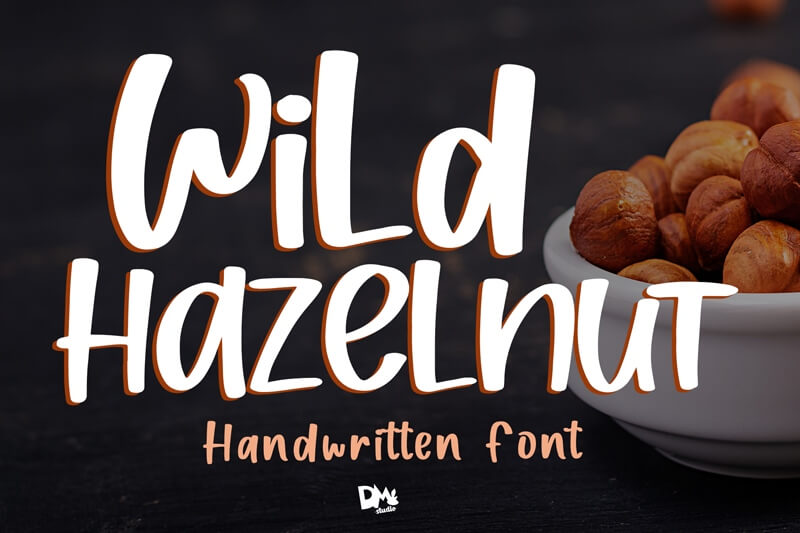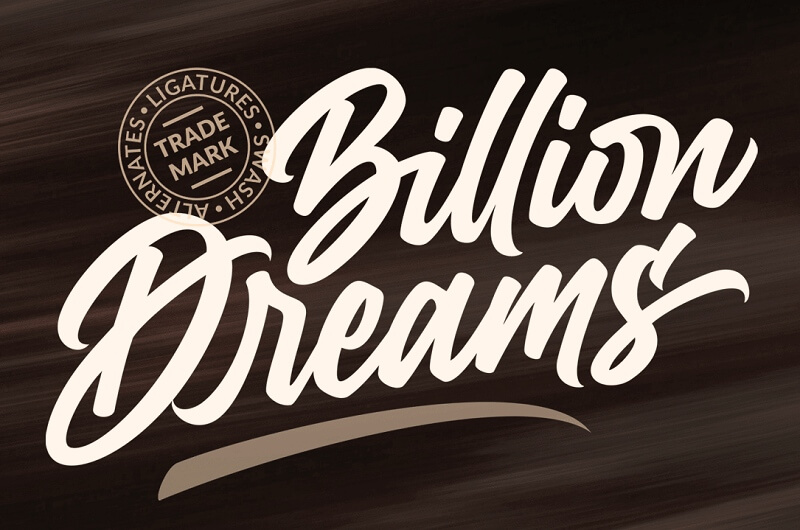
Best Font For Cookbook . Keep your fonts to a maximum of three: There are several standard fonts used for printed cookbooks. The major ones are georgia, adobe garamond pro, minion pro, palatino, baskerville, and goudy old style. Deciding which font to use and whether it should compliment, contrast or accentuate the imagery, is a key decision in. They’ll never let your typesetting down, guaranteed. The right font choice will not only make your book more consumable, but will also be better aligned with the genre, the book’s tone, and your audience. Cookbooks are typically read while standing up and walking around the kitchen, so look for body copy and hierarchy typefaces that can be read from a distance. We judged the legibility, beauty, simplicity and variety of weights available of a huge range of fonts, and whittled them down to these faithful five.
The major ones are georgia, adobe garamond pro, minion pro, palatino, baskerville, and goudy old style. The right font choice will not only make your book more consumable, but will also be better aligned with the genre, the book’s tone, and your audience. They’ll never let your typesetting down, guaranteed. Cookbooks are typically read while standing up and walking around the kitchen, so look for body copy and hierarchy typefaces that can be read from a distance. Deciding which font to use and whether it should compliment, contrast or accentuate the imagery, is a key decision in. There are several standard fonts used for printed cookbooks. Keep your fonts to a maximum of three: We judged the legibility, beauty, simplicity and variety of weights available of a huge range of fonts, and whittled them down to these faithful five.
Best Font For Cookbook We judged the legibility, beauty, simplicity and variety of weights available of a huge range of fonts, and whittled them down to these faithful five. They’ll never let your typesetting down, guaranteed. The major ones are georgia, adobe garamond pro, minion pro, palatino, baskerville, and goudy old style. The right font choice will not only make your book more consumable, but will also be better aligned with the genre, the book’s tone, and your audience. Keep your fonts to a maximum of three: Cookbooks are typically read while standing up and walking around the kitchen, so look for body copy and hierarchy typefaces that can be read from a distance. Deciding which font to use and whether it should compliment, contrast or accentuate the imagery, is a key decision in. We judged the legibility, beauty, simplicity and variety of weights available of a huge range of fonts, and whittled them down to these faithful five. There are several standard fonts used for printed cookbooks.
The Typekit Blog Choosing and pairing typefaces for cookbooks Best Font For Cookbook Cookbooks are typically read while standing up and walking around the kitchen, so look for body copy and hierarchy typefaces that can be read from a distance. They’ll never let your typesetting down, guaranteed. Keep your fonts to a maximum of three: There are several standard fonts used for printed cookbooks. Deciding which font to use and whether it should. Best Font For Cookbook.
Cookbook Font emskis FontSpace Best Font For Cookbook Cookbooks are typically read while standing up and walking around the kitchen, so look for body copy and hierarchy typefaces that can be read from a distance. Deciding which font to use and whether it should compliment, contrast or accentuate the imagery, is a key decision in. We judged the legibility, beauty, simplicity and variety of weights available of a. Best Font For Cookbook.
23 Best Free and Inexpensive Fonts for Cookbook Design Best Font For Cookbook We judged the legibility, beauty, simplicity and variety of weights available of a huge range of fonts, and whittled them down to these faithful five. There are several standard fonts used for printed cookbooks. The right font choice will not only make your book more consumable, but will also be better aligned with the genre, the book’s tone, and your. Best Font For Cookbook.
Best Font for Printed Recipes I'm assembling about 100 printed family Best Font For Cookbook Keep your fonts to a maximum of three: Deciding which font to use and whether it should compliment, contrast or accentuate the imagery, is a key decision in. The major ones are georgia, adobe garamond pro, minion pro, palatino, baskerville, and goudy old style. Cookbooks are typically read while standing up and walking around the kitchen, so look for body. Best Font For Cookbook.
Cookbook Title Font Download Free Best Font For Cookbook Keep your fonts to a maximum of three: There are several standard fonts used for printed cookbooks. The right font choice will not only make your book more consumable, but will also be better aligned with the genre, the book’s tone, and your audience. Deciding which font to use and whether it should compliment, contrast or accentuate the imagery, is. Best Font For Cookbook.
Best Fonts for Book Covers The Dietitian Editor Best Font For Cookbook We judged the legibility, beauty, simplicity and variety of weights available of a huge range of fonts, and whittled them down to these faithful five. Deciding which font to use and whether it should compliment, contrast or accentuate the imagery, is a key decision in. They’ll never let your typesetting down, guaranteed. There are several standard fonts used for printed. Best Font For Cookbook.
23 Best Free and Inexpensive Fonts for Cookbook Design Best Font For Cookbook The major ones are georgia, adobe garamond pro, minion pro, palatino, baskerville, and goudy old style. Keep your fonts to a maximum of three: The right font choice will not only make your book more consumable, but will also be better aligned with the genre, the book’s tone, and your audience. There are several standard fonts used for printed cookbooks.. Best Font For Cookbook.
23 Best Free and Inexpensive Fonts for Cookbook Design Best Font For Cookbook Keep your fonts to a maximum of three: Cookbooks are typically read while standing up and walking around the kitchen, so look for body copy and hierarchy typefaces that can be read from a distance. The right font choice will not only make your book more consumable, but will also be better aligned with the genre, the book’s tone, and. Best Font For Cookbook.
20 Best Book Fonts for Covers, Titles & More 2021 Theme Junkie Best Font For Cookbook Cookbooks are typically read while standing up and walking around the kitchen, so look for body copy and hierarchy typefaces that can be read from a distance. The right font choice will not only make your book more consumable, but will also be better aligned with the genre, the book’s tone, and your audience. They’ll never let your typesetting down,. Best Font For Cookbook.